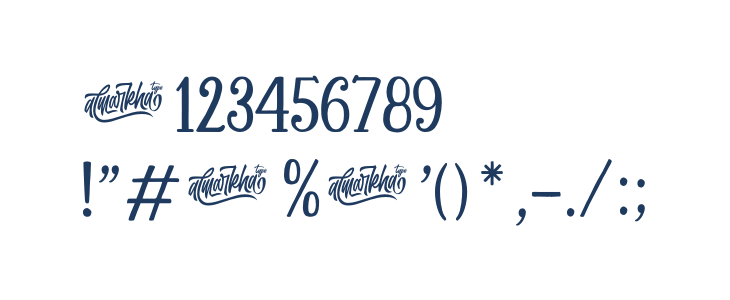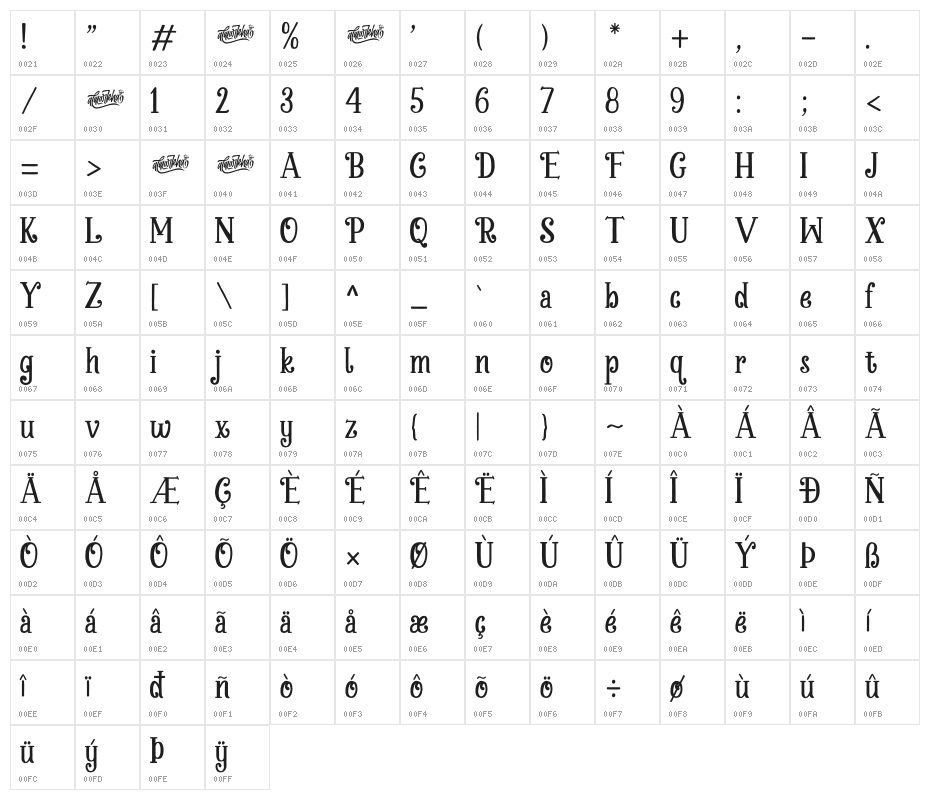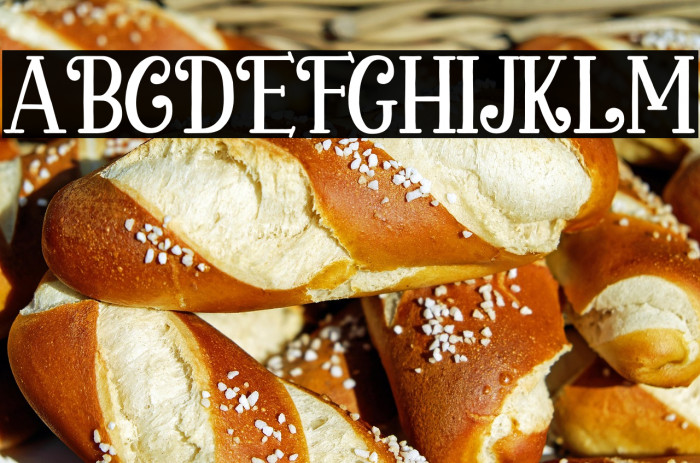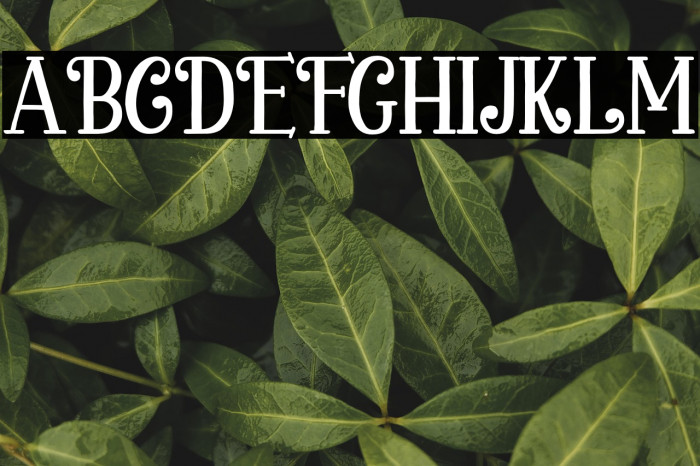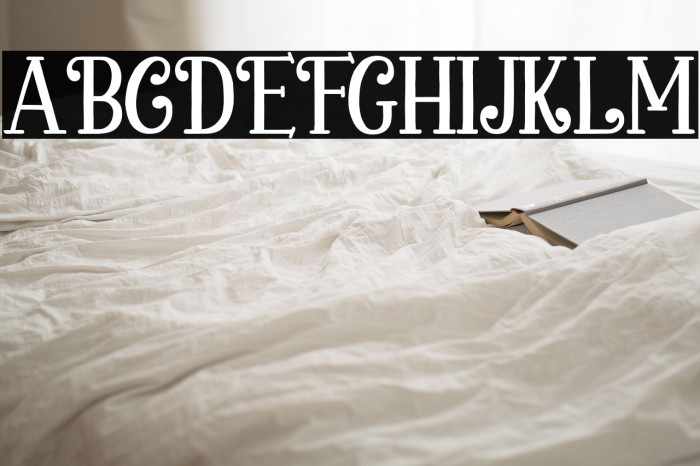
Chickens Lovers Font
Chickens Lovers Description
This font features a playful and decorative style with a whimsical touch. The uppercase letters have a bold presence with unique curls and swirls, adding a sense of fun and creativity. The lowercase letters maintain a consistent style, echoing the playful nature of the uppercase set. Numbers are clear and bold, matching the overall aesthetic. Special characters are designed with the same decorative flair, making them stand out. This font is ideal for projects that require a lively and engaging typeface.
| Proposed Projects | Great for children's books, playful branding, greeting cards, and creative posters. |